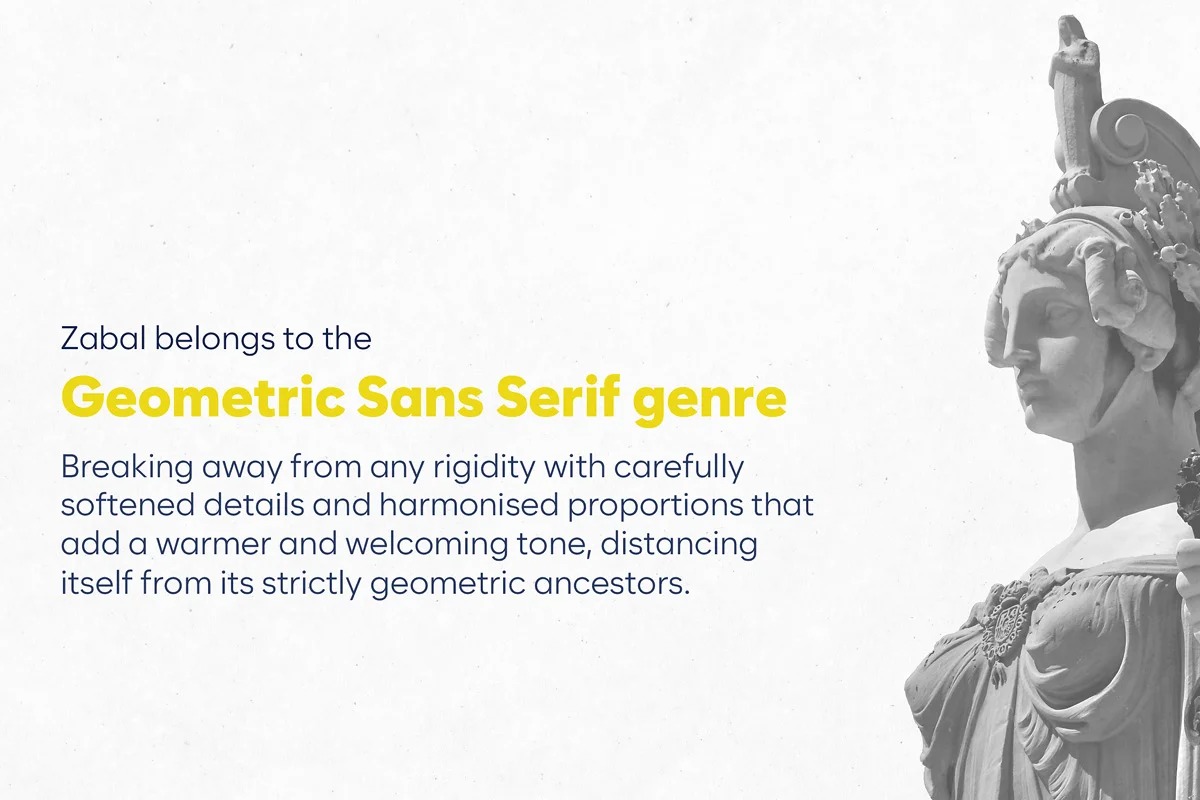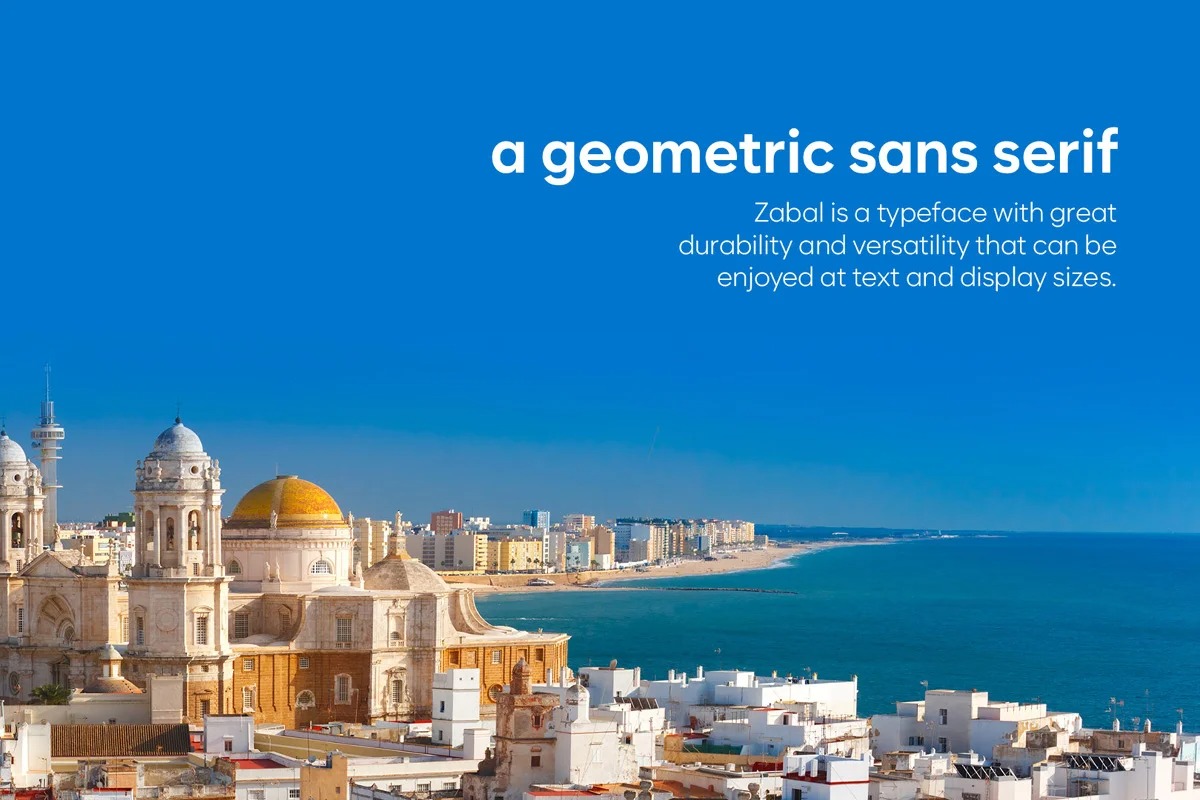
Zabal Font Family
Zabal Sans Serif Font
This is a streamlined geometric typeface created by FontPeople, that speaks in a confident, affable tone. Zabal is a 20 style family of 10 uprights and 10 italics with a variable font available for all axis. It is a typeface with great durability and versatility that can be enjoyed at text and display sizes.
Even though Zabal belongs to the Geometric Sans Serif genre it breaks away from any rigidity with carefully softened details and harmonised proportions that add a warmer and welcoming tone, distancing itself from its strictly geometric ancestors.